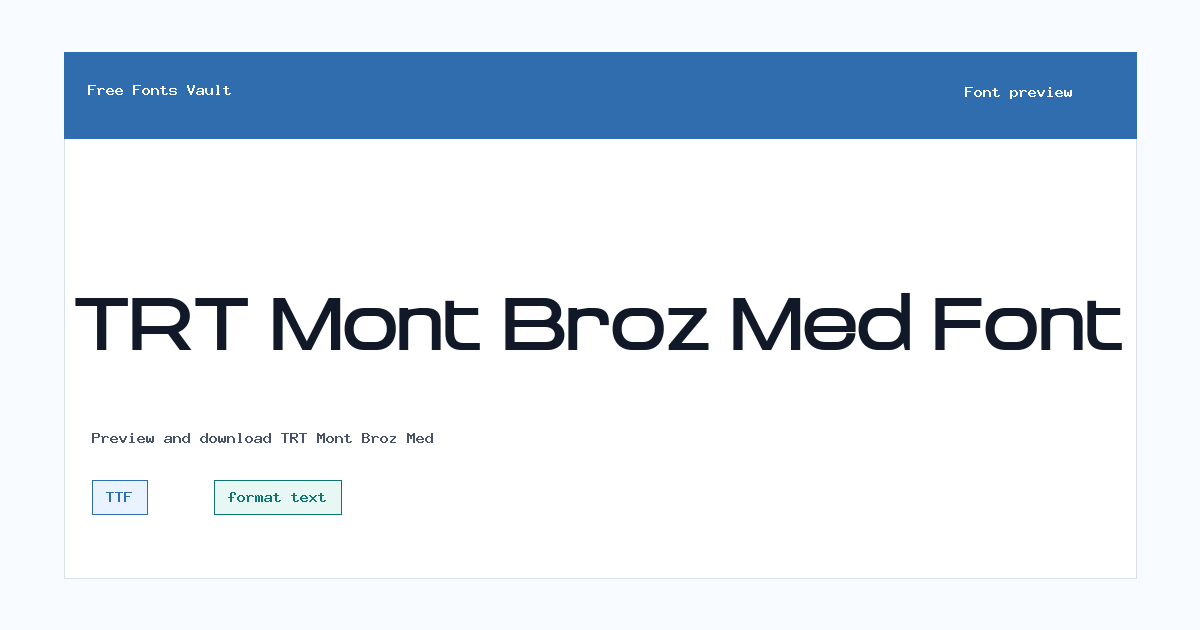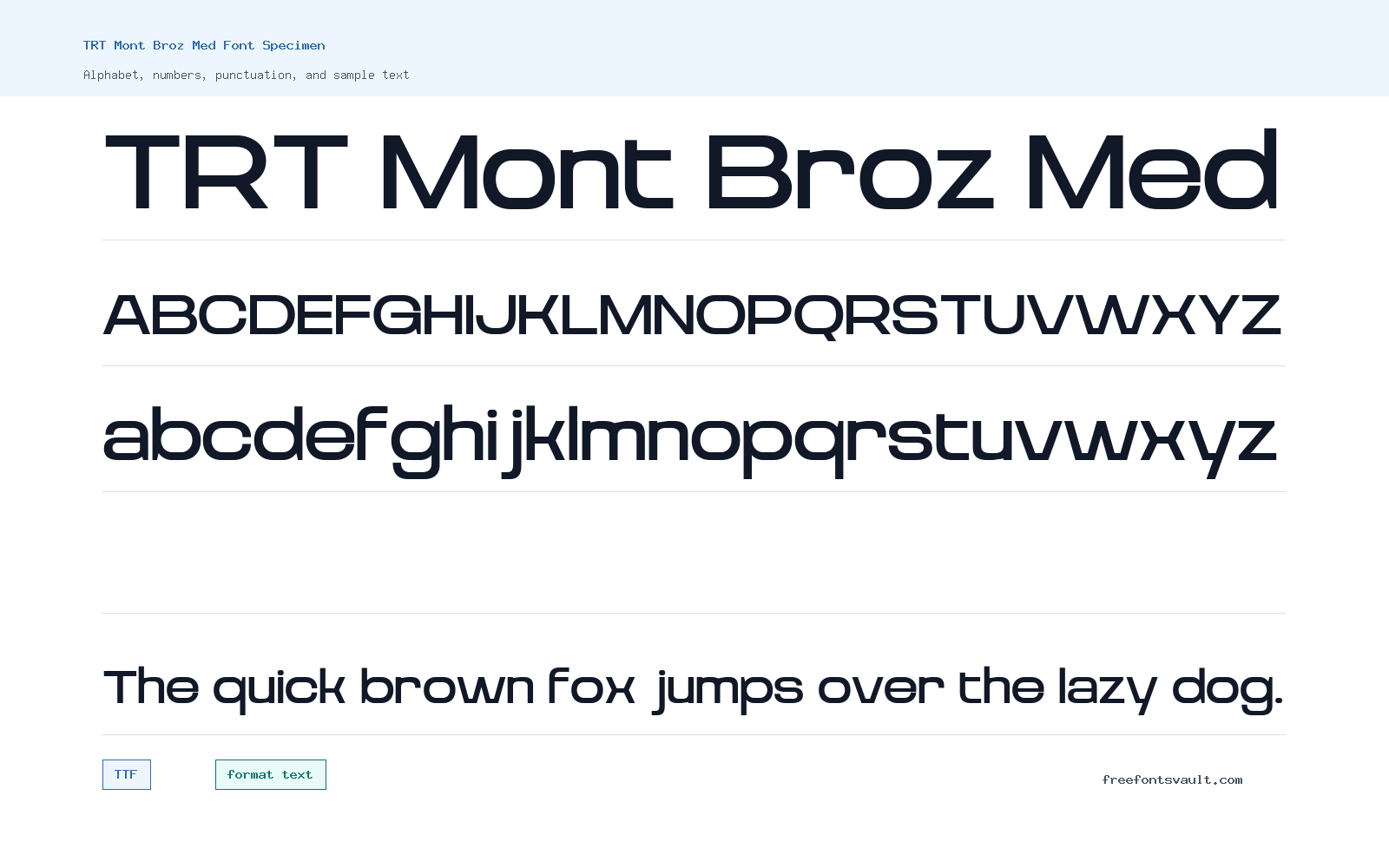
TRT Mont Broz Med
TRT Mont Broz Med is a medium-weight demo style from the TRT Mont Broz family, a wide geometric sans made for display use and short, confident text.
About TRT Mont Broz Med
TRT Mont Broz Med has a broad, modern sans-serif look with clean geometry and a steady medium weight. It sits between the lighter and bolder styles in the demo family, giving headlines more presence than a regular cut without becoming as heavy as SemiBold or Bold. The wide letter shapes make it better suited to large typography than dense body copy.
The Medium weight sits between Regular and SemiBold, so it is useful when the Regular style feels too light but Bold feels too aggressive. Try it for event titles, section headers, album-style text, and wide logo sketches. It can also help build hierarchy beside the Light or Regular styles in a personal mockup.
• Large headlines, posters, and title treatments
• Personal design mockups, social graphics, and display previews
Try it at larger sizes first. Its wide proportions work well for short display text, but they can take up space quickly in menus, paragraphs, or mobile layouts. Check punctuation, numbers, and any special characters you need because the demo character set is limited. Keep plenty of horizontal room, because the wide construction can crowd narrow mobile layouts.
What weight is TRT Mont Broz Med?
It is the Medium style, with a listed weight of 500.
What should I use this font for?
It is best for short display text such as headlines, posters, personal graphics, and design previews where the wide geometric look can stand out.